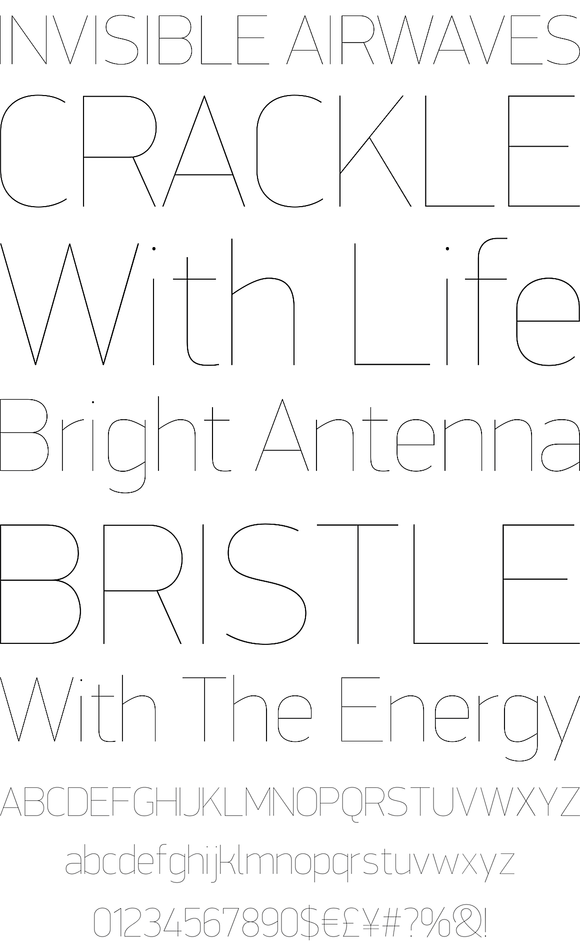
PF DIN Display Pro
Foundry: Parachute
DIN Display was designed as an alternative to Parachute's Din Text series. While Din Display seems to retain DIN's basic characteristics, it shines with its sharper corners and contemporary look. Completed in 2002, it was first released and published in our "IDEA-Trendsetting typography vol.1" catalog (late 2003) and was an 'instant hit'. DIN Display Pro is a brand new and improved version which has been enhanced with more weights, multilingual support and opentype features in all different styles. It has lowercase ascenders that are higher than the capitals and italics (just like the first release) that are not a mechanically-obliqued version of the regular weights, but rather true designed italics. Finally, every font in this family has been completed with 270 copyright-free symbols, some of which have been proposed by several international organizations for packaging, public areas, environment, transportation, computers, fabric care and urban life.